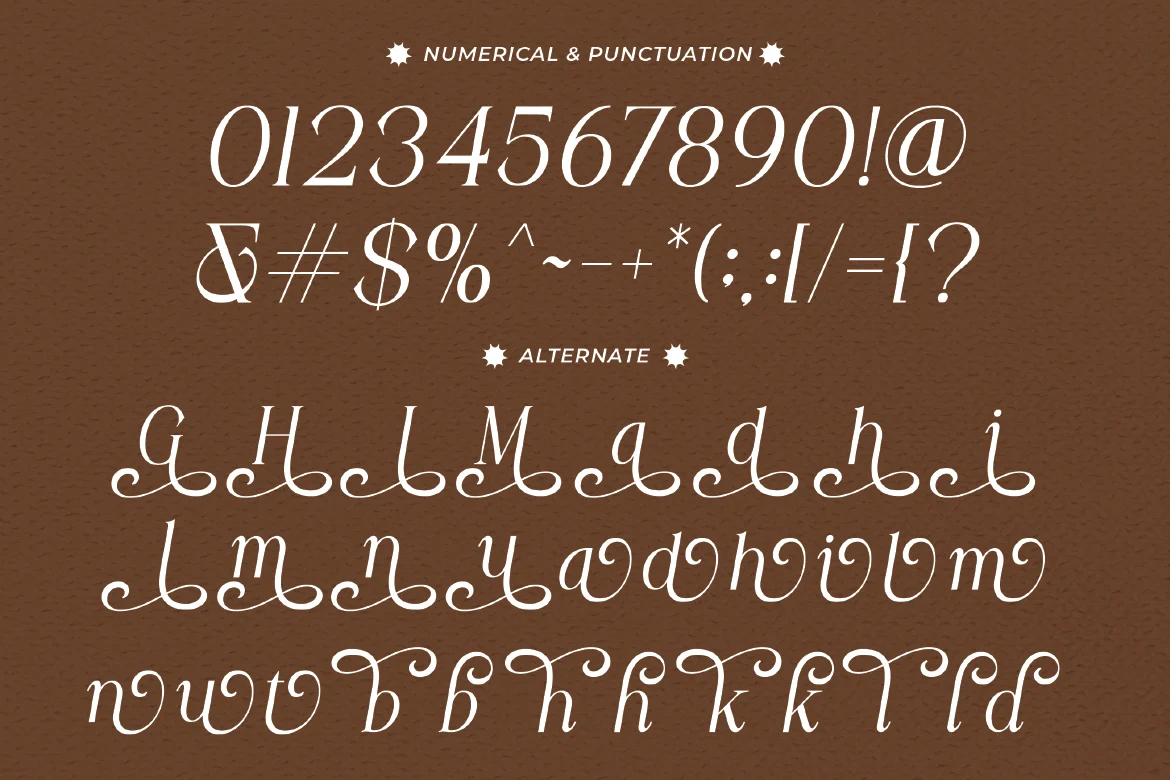
Italic Serif Font – Morient
Italic Serif Font - Morient
Morient is a refined beautiful and luxury italic serif typeface designed to express elegance, movement, and high-end sophistication. With its graceful slant, delicate curves, and smooth contrast, Morient creates a flowing and stylish visual rhythm that feels both timeless and modern. Its italic form adds a sense of motion and exclusivity, making it perfect for designs that require a soft yet premium aesthetic. Whether for branding, editorial layouts, or luxury packaging, Morient delivers a polished and distinctive typographic presence.
Who Should Use Morient?
Morient is ideal for designers, creatives, and luxury brands who want to highlight elegance and sophistication with a stylish italic serif. It’s especially suited for projects that require a graceful, high-end, and fashionable visual identity.
Luxury branding and identity design
Fashion and beauty projects
Editorial and magazine layouts
Elegant logo design
Premium packaging and labels
Wedding and event design
Social media visuals
Sophisticated typography compositions